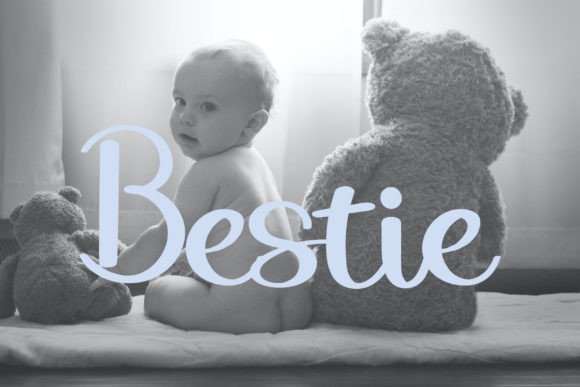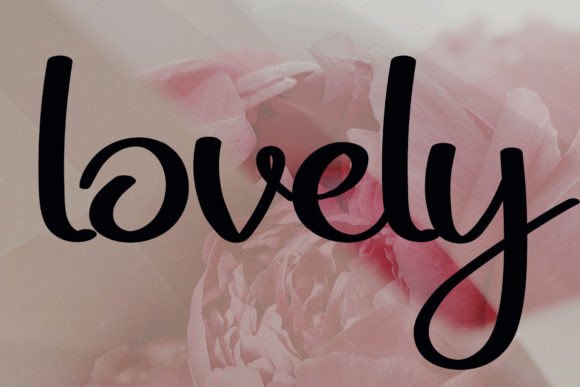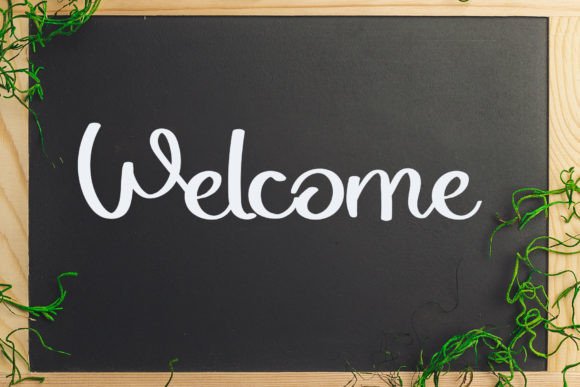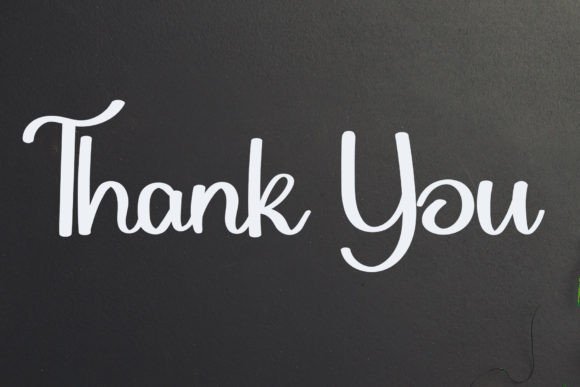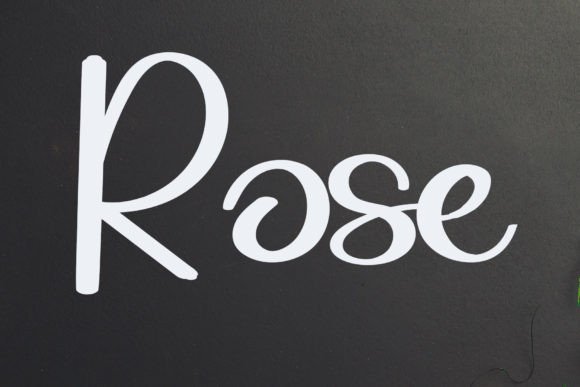
Adventure Font
About Adventure Font
Adventure, characterized by its delicate, elegant, and flowing handwritten script, stands out as a font that seamlessly blends beauty with balance. The carefully crafted characters of Adventure lend a touch of sophistication and grace to a diverse range of designs, making it a versatile choice for various creative endeavors. When incorporated into your most imaginative concepts, this font has the remarkable ability to breathe life into them, elevating the overall visual appeal.
The beauty of Adventure lies in its well-balanced characters, each stroke carefully designed to evoke a sense of refinement. The delicate nature of the script adds a touch of elegance, making it suitable for a wide array of applications. Whether you’re working on invitations, branding materials, advertisements, or any creative project, Adventure brings a unique charm that complements and enhances your ideas.
In the realm of design, Adventure’s flowing script creates a harmonious and visually pleasing experience. Its elegant curves and graceful lines add a layer of sophistication to any text, making it an excellent choice for projects where a touch of refined creativity is desired.
When added to your most creative ideas, Adventure doesn’t just serve as a font; it becomes an integral part of the design narrative. Its ability to adapt and enhance various concepts is a testament to its versatility. Whether you’re crafting a delicate wedding invitation, designing a logo for a high-end brand, or working on social media graphics, Adventure adds a subtle yet impactful touch.
The liveliness that Adventure imparts to designs goes beyond mere aesthetics. It has the power to evoke emotions, set moods, and create a lasting impression on the audience. The font’s flowing nature adds a sense of dynamism, making it particularly well-suited for projects that seek to convey a blend of delicacy and energy.
In conclusion, Adventure is more than just a font; it’s a creative companion that transforms ideas into visually captivating realities. Its delicacy, elegance, and flowing script make it a valuable asset for designers and creators looking to infuse their projects with a touch of sophistication and life. Add Adventure to your creative toolkit and watch as it breathes vibrancy into your most imaginative concepts.